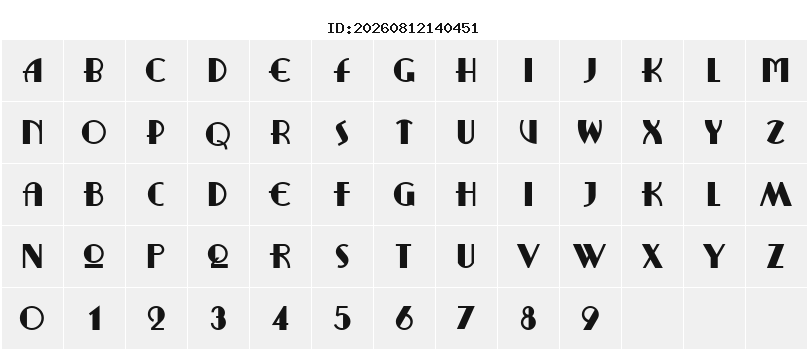
RitzyRemixNF Preview
• Font Name: RitzyRemixNF
• Full Font Name: RitzyRemixNF
• Manufacturer: Nick's Fonts
About RitzyRemixNF.ttf
RitzyRemixNF.ttf is a modern, elegant sans-serif font designed for ultimate readability and visual harmony. Perfect for branding, headlines, web design, and print materials.